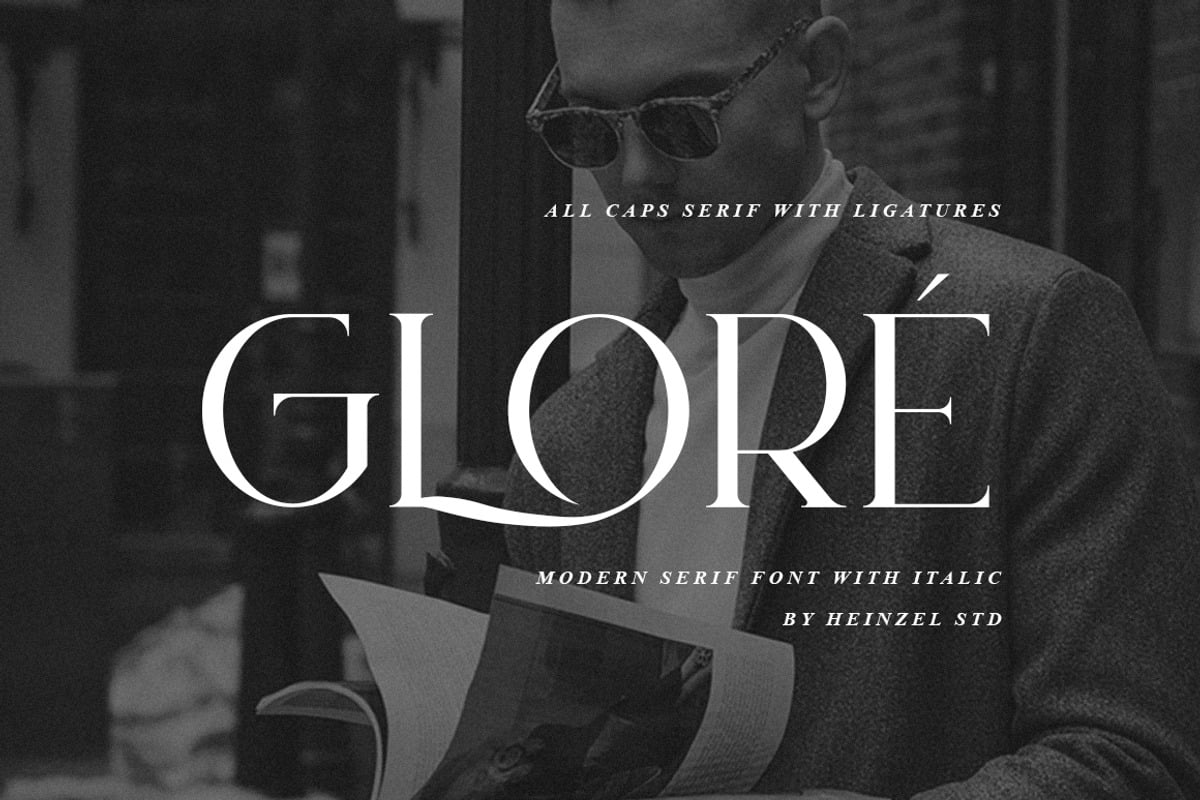
Gloré Modern Ligature Font
Gloré is the elegant, modern serif typeface that transforms weddings, brands, and editorial designs into something unforgettable.
With its refined all-caps style and stunning ligatures, Gloré brings a luxurious sophistication to any creative project. Whether you're crafting wedding invitations, stationery art, logos, magazine spreads, or eye-catching social media posts, this typeface delivers ravishing style with effortless versatility.
Gloré Features:
- Regular and Italic versions included
- All caps serif design with numerals and extended punctuation
- Stunning ligatures for elevated typographic detail
- Multilingual support for a wide range of languages